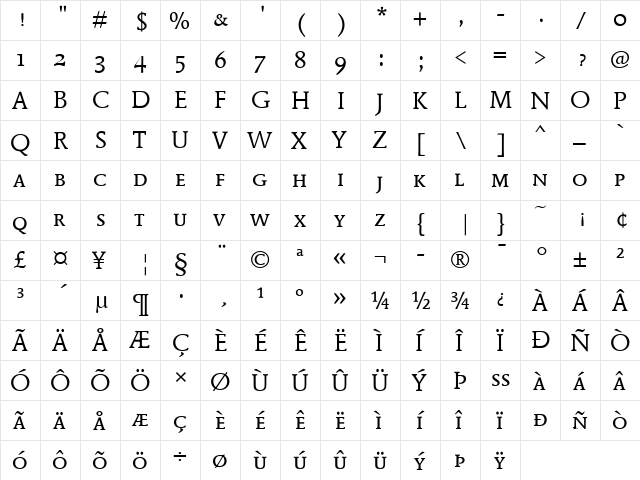
Mendoza Roman ITC Roman Book
Design Context for Mendoza Roman ITC Typeface
Mendoza Roman ITC takes a measured approach to typography — its balanced proportions and neutral character make it a reliable workhorse for both digital and print work.